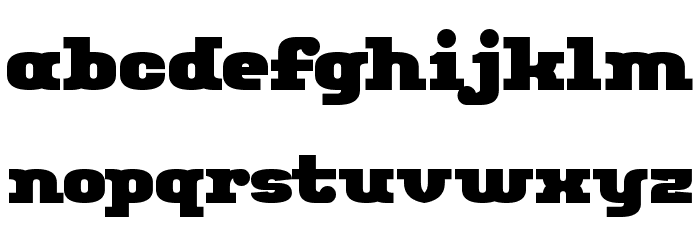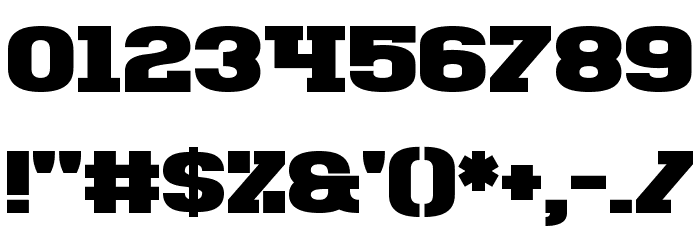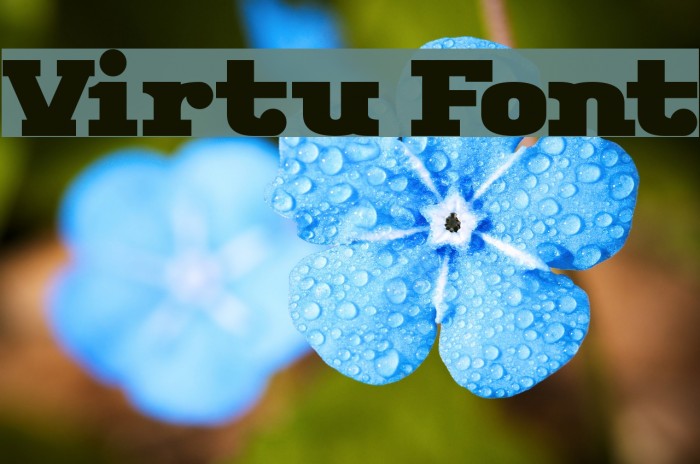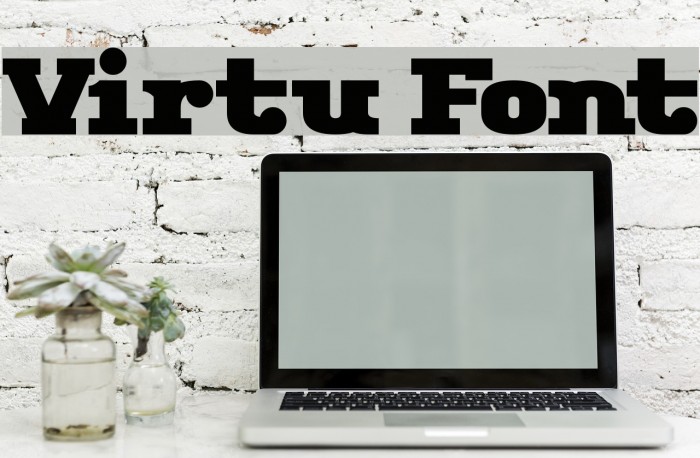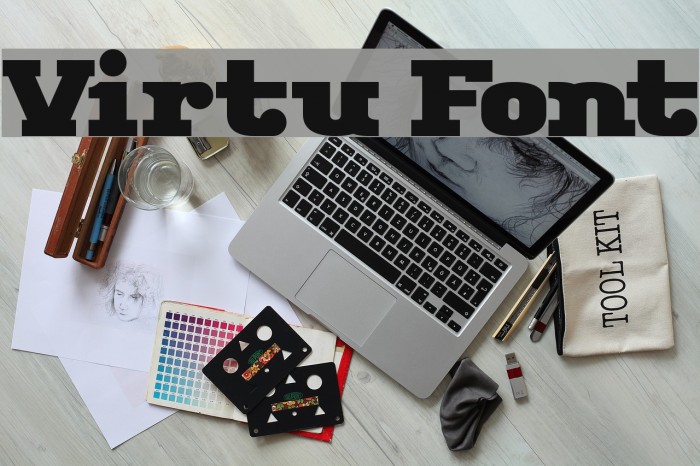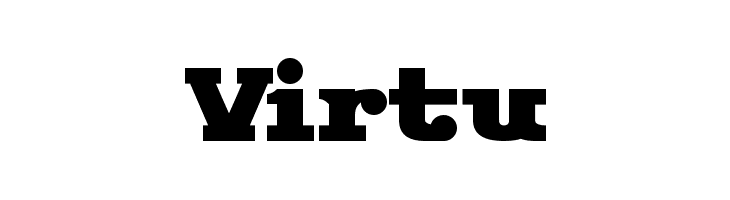
Virtu Font
This font is a bold and robust slab serif typeface, characterized by its thick, block-like serifs and strong presence. The uppercase letters are uniform in height, providing a sense of stability and strength. The lowercase letters maintain a consistent weight, with rounded edges that soften the overall appearance. Numbers are equally bold, ensuring readability and impact. Special characters are designed to match the boldness of the alphabet, making them stand out effectively. The font's design is ideal for making a statement, with its high contrast in stroke thickness adding to its commanding presence.
A bold slab serif font with strong, block-like serifs and high contrast.
- Proposed Projects: Ideal for headlines, posters, branding, and any design requiring a strong visual impact.